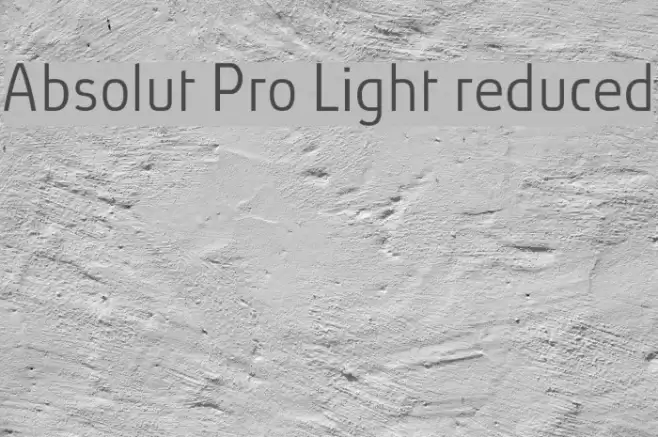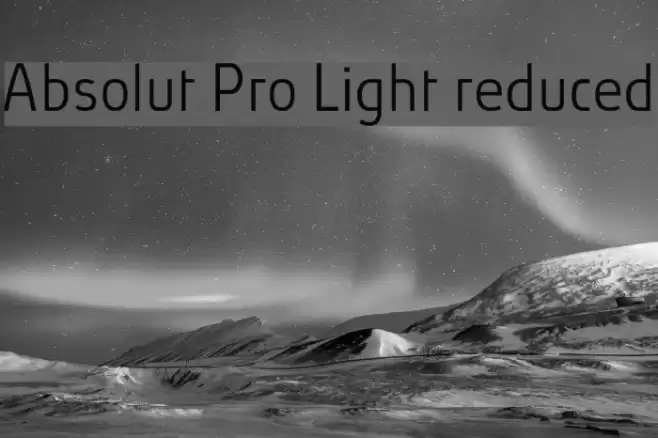
Absolut Pro Light reduced Font
Absolut Pro Light reduced Description
This font features a clean and modern sans-serif design, characterized by its light weight and minimalistic style. The letterforms are sleek and streamlined, with a uniform stroke width that gives it a contemporary and professional appearance. The characters are well-proportioned, with a slight geometric influence that enhances readability. The font maintains a consistent baseline and x-height, providing a harmonious and balanced look. Its simplicity and elegance make it suitable for a wide range of design applications, from digital interfaces to print media.
A modern, light sans-serif font with a clean and minimalistic design from Uncategorized fonts.
- Proposed Projects: Ideal for branding, web design, corporate materials, and editorial layouts.